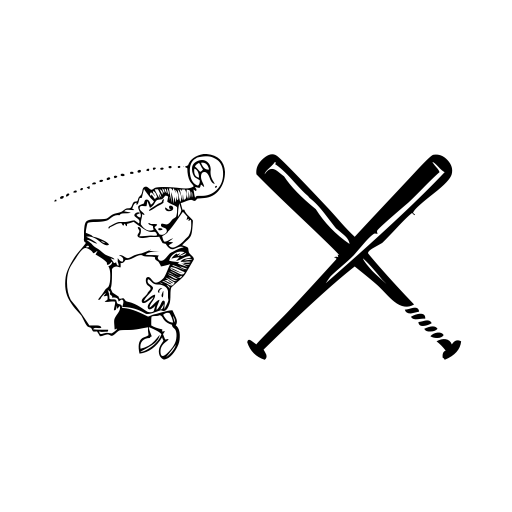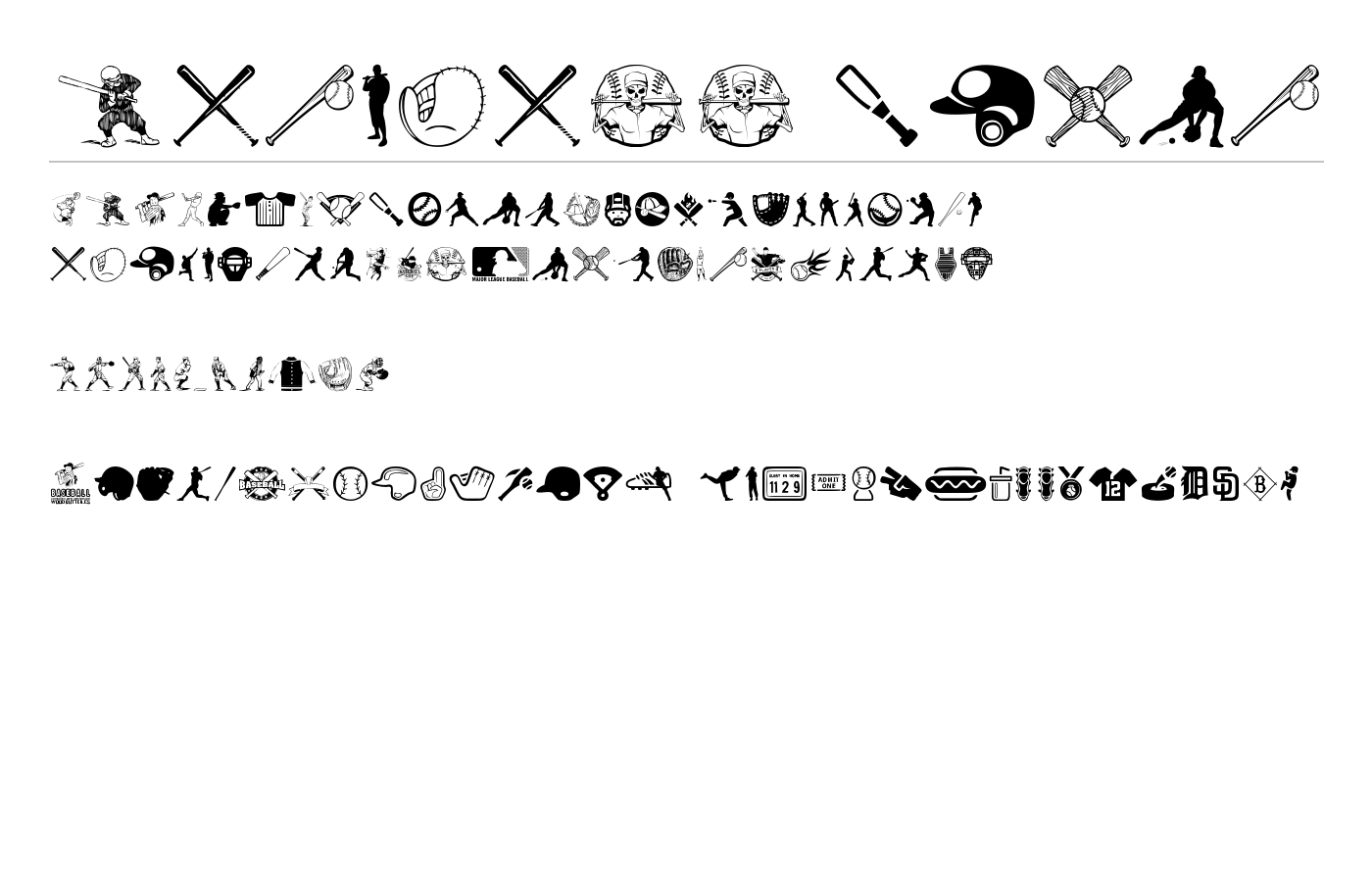
Baseball Icons Font is a symbol-based font featuring detailed, high-contrast illustrations of baseball-related imagery, from players and equipment to logos and action poses. Ideal for sports-themed designs, this font adds a playful and dynamic touch to branding, posters, and promotional materials, capturing the spirit and energy of the game with clear, recognizable icons.
Baseball Icons Font
About Baseball Icons Font